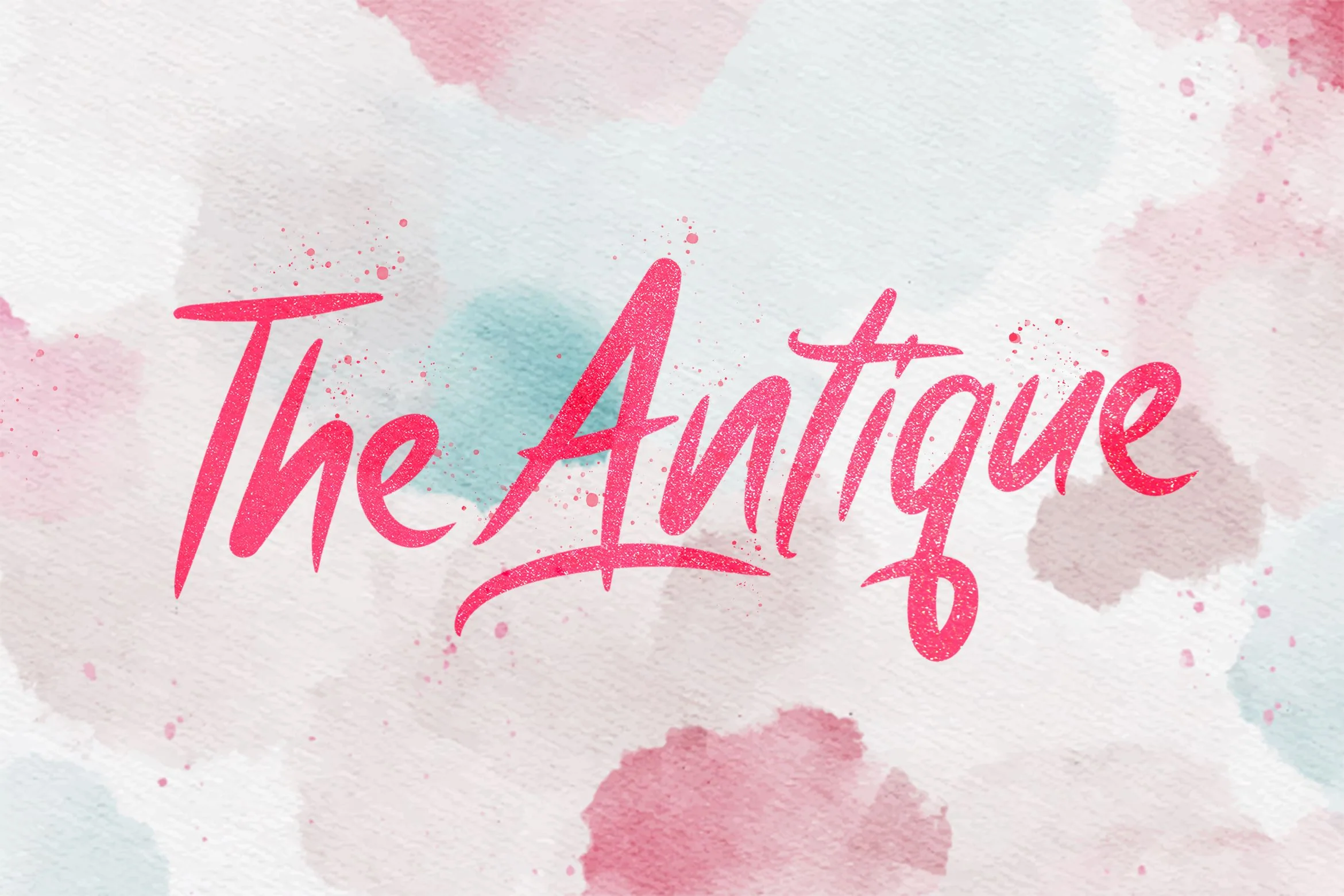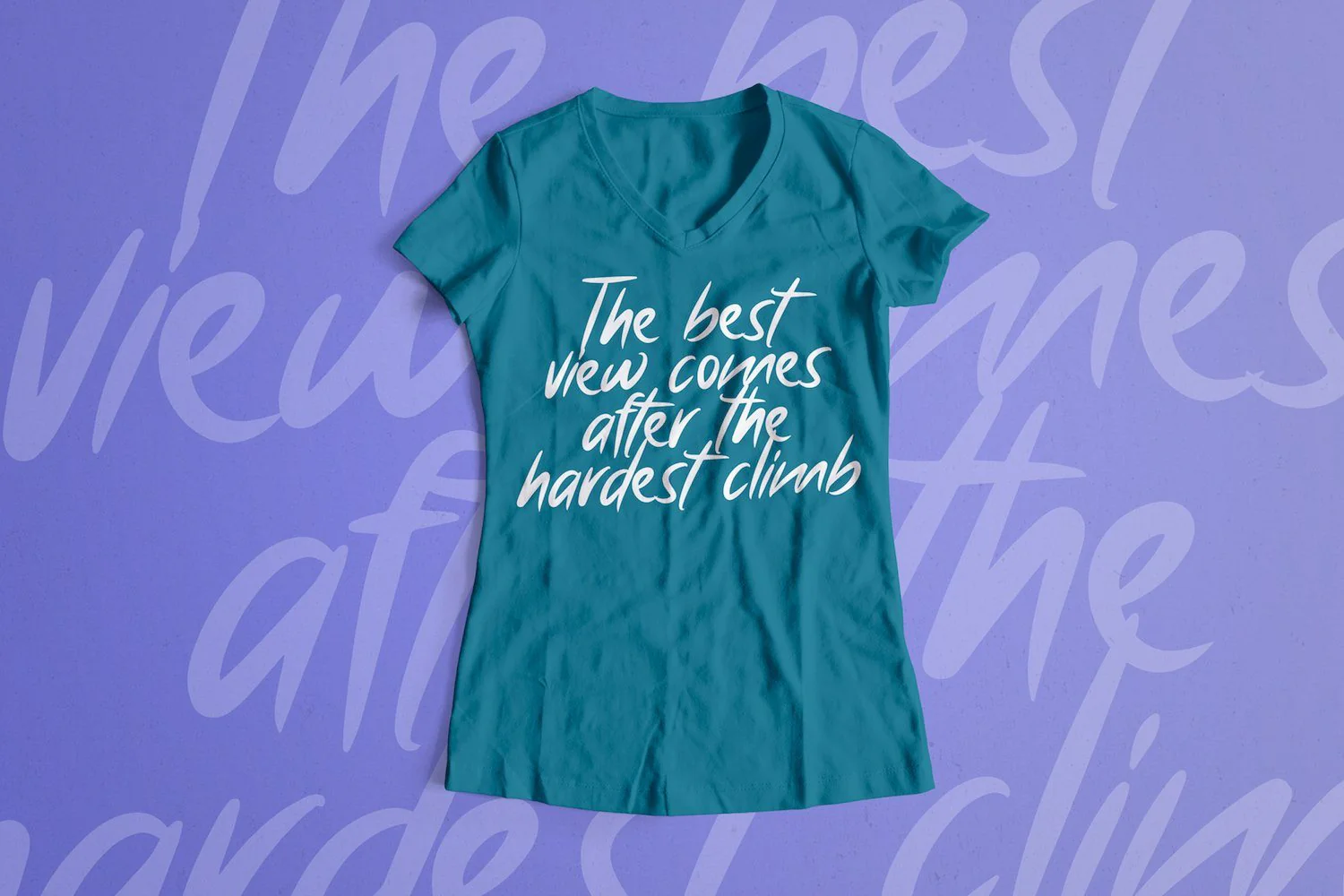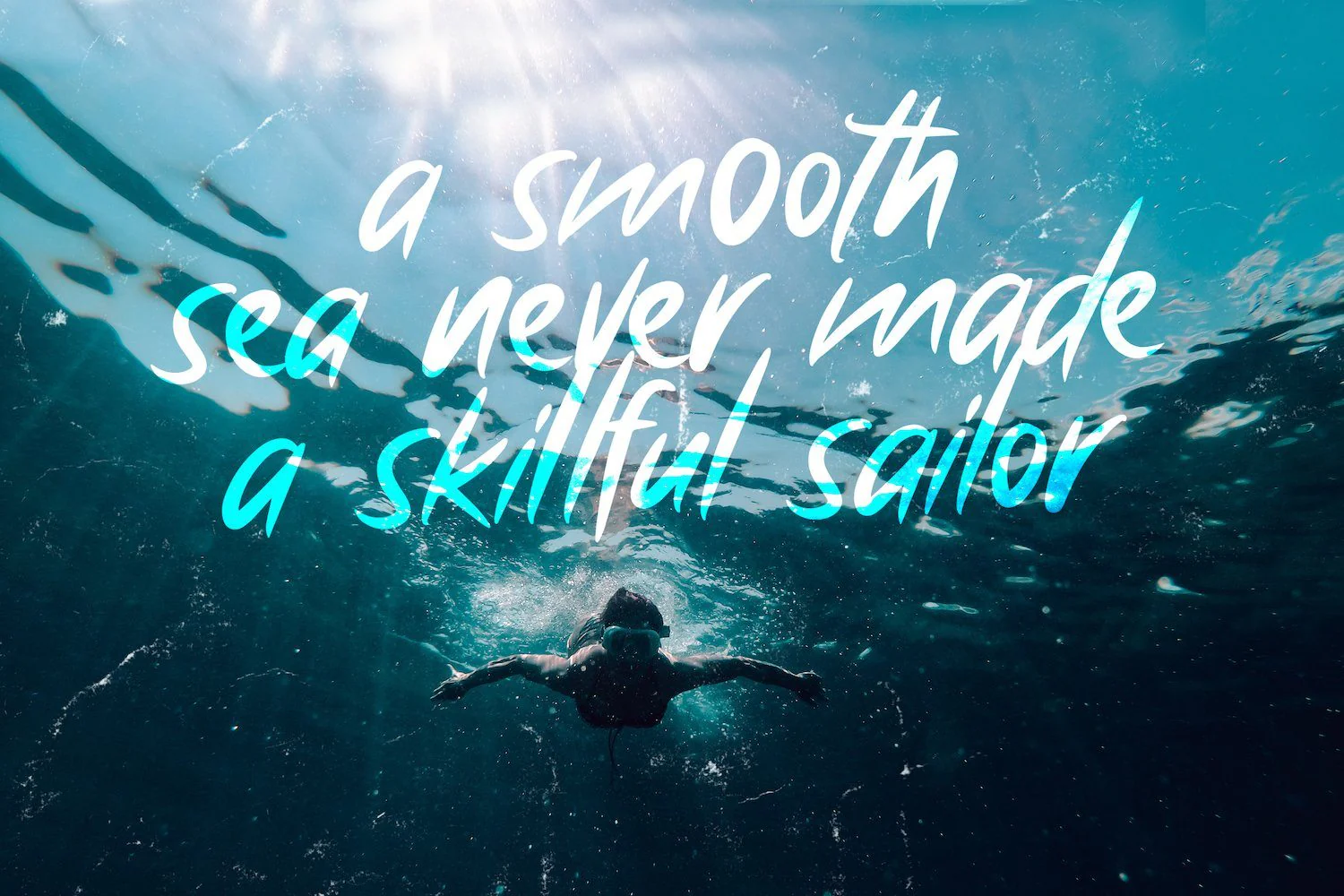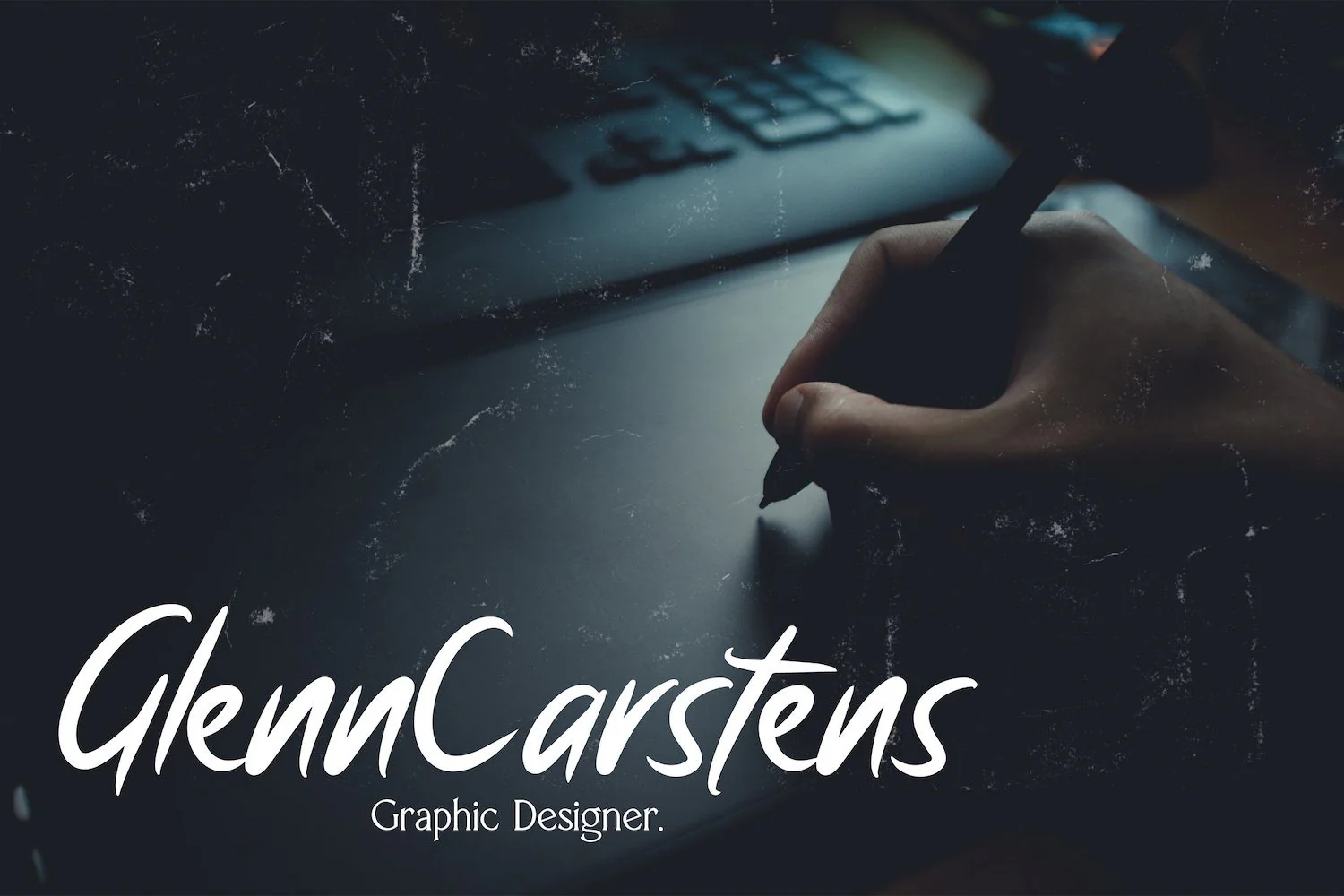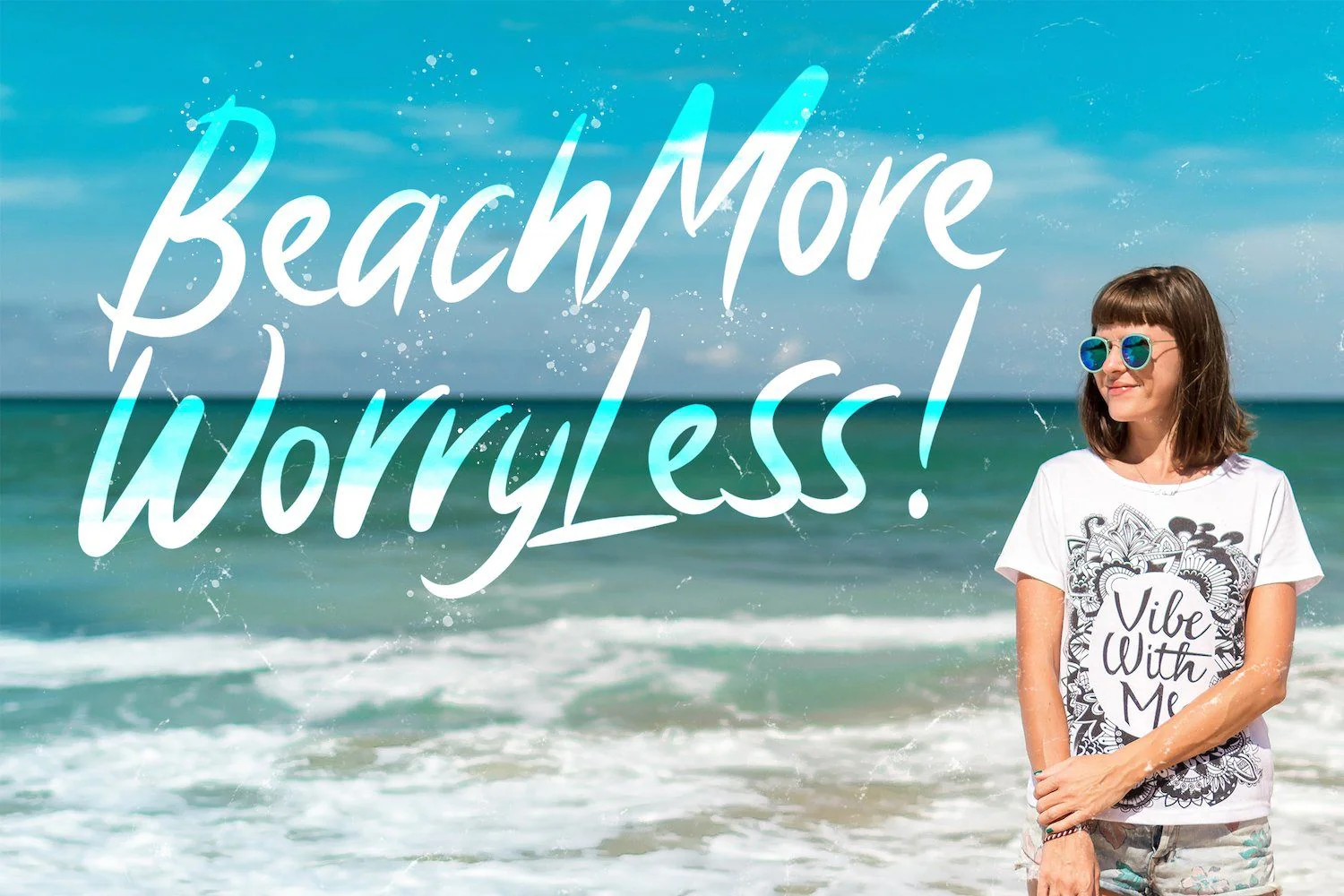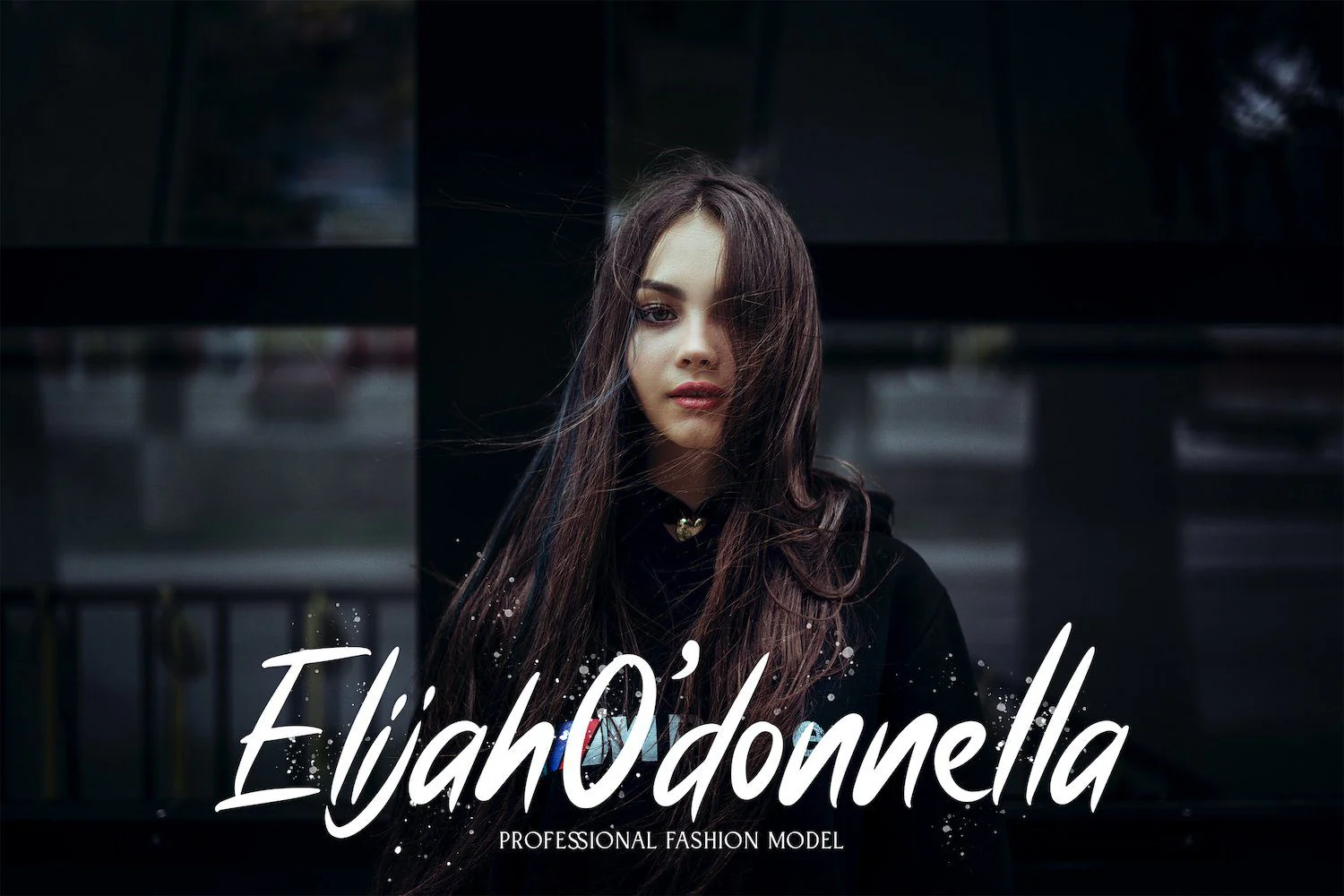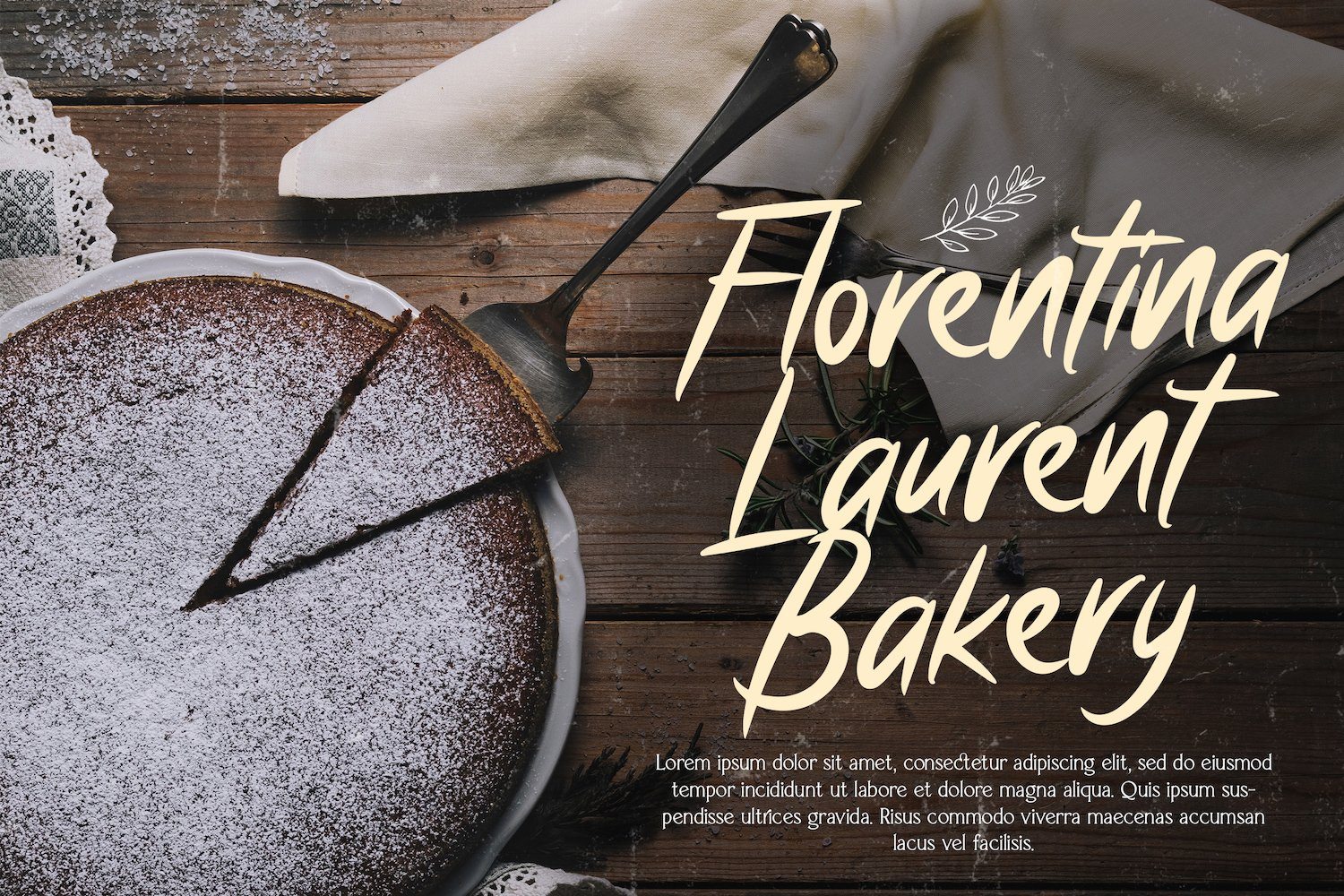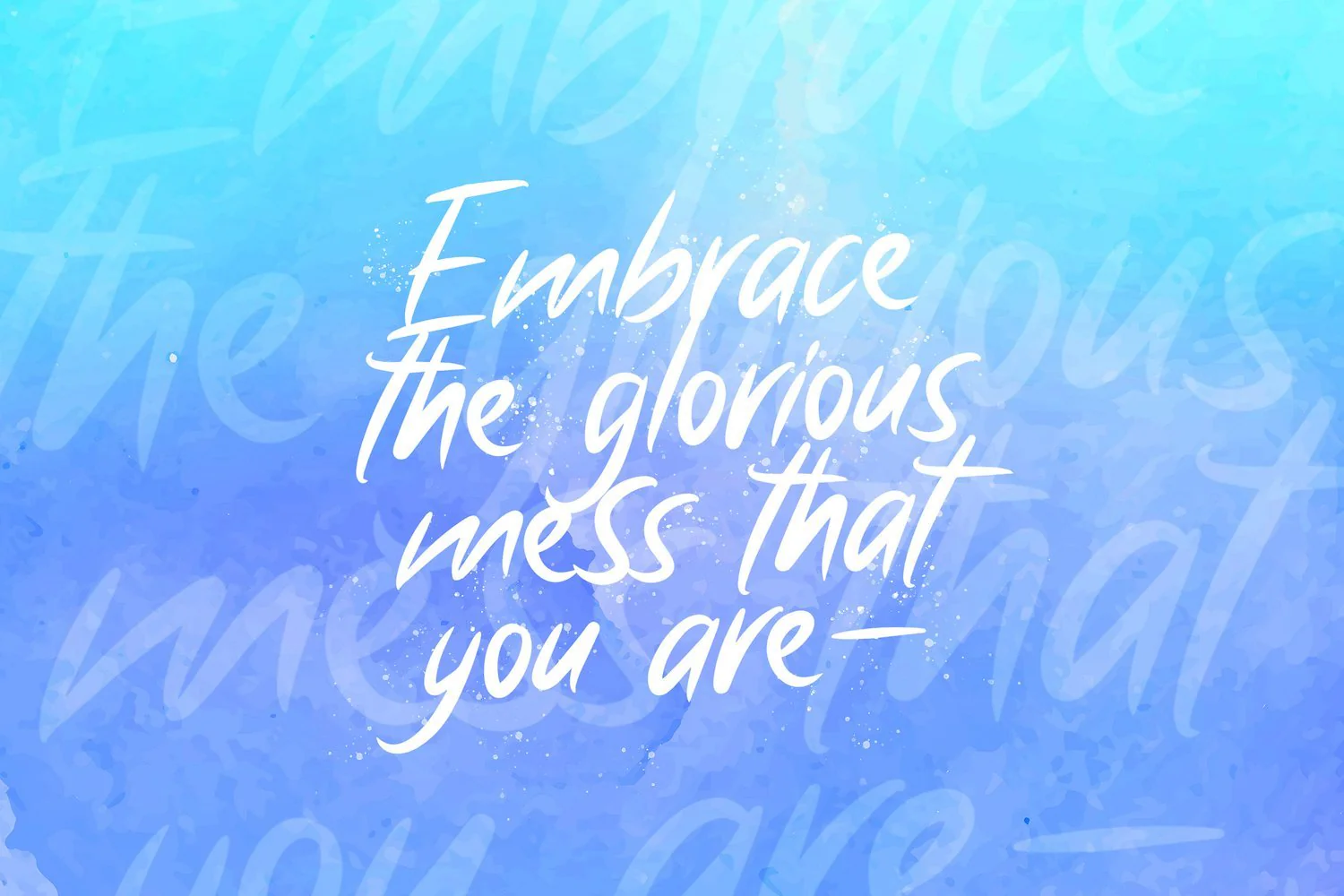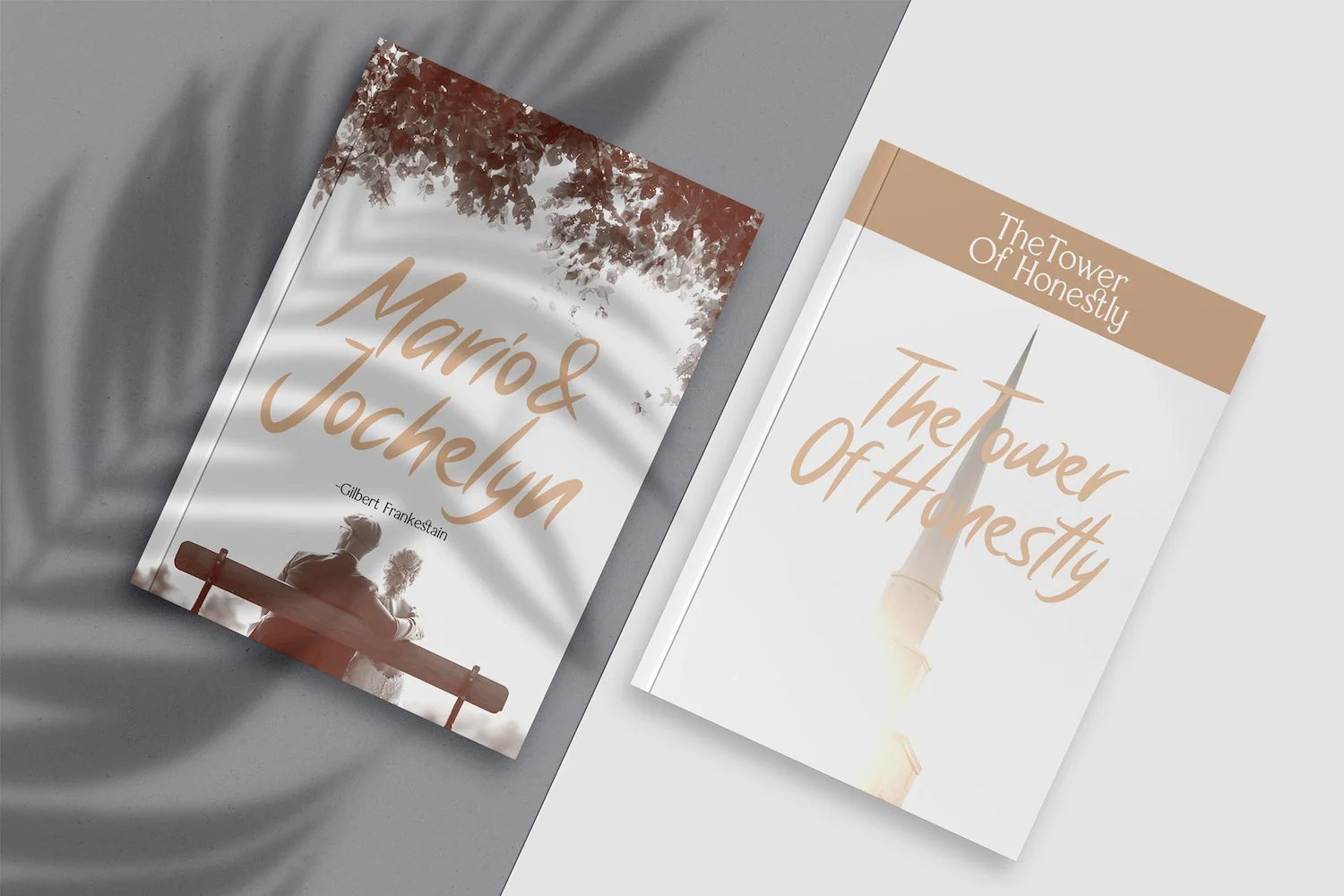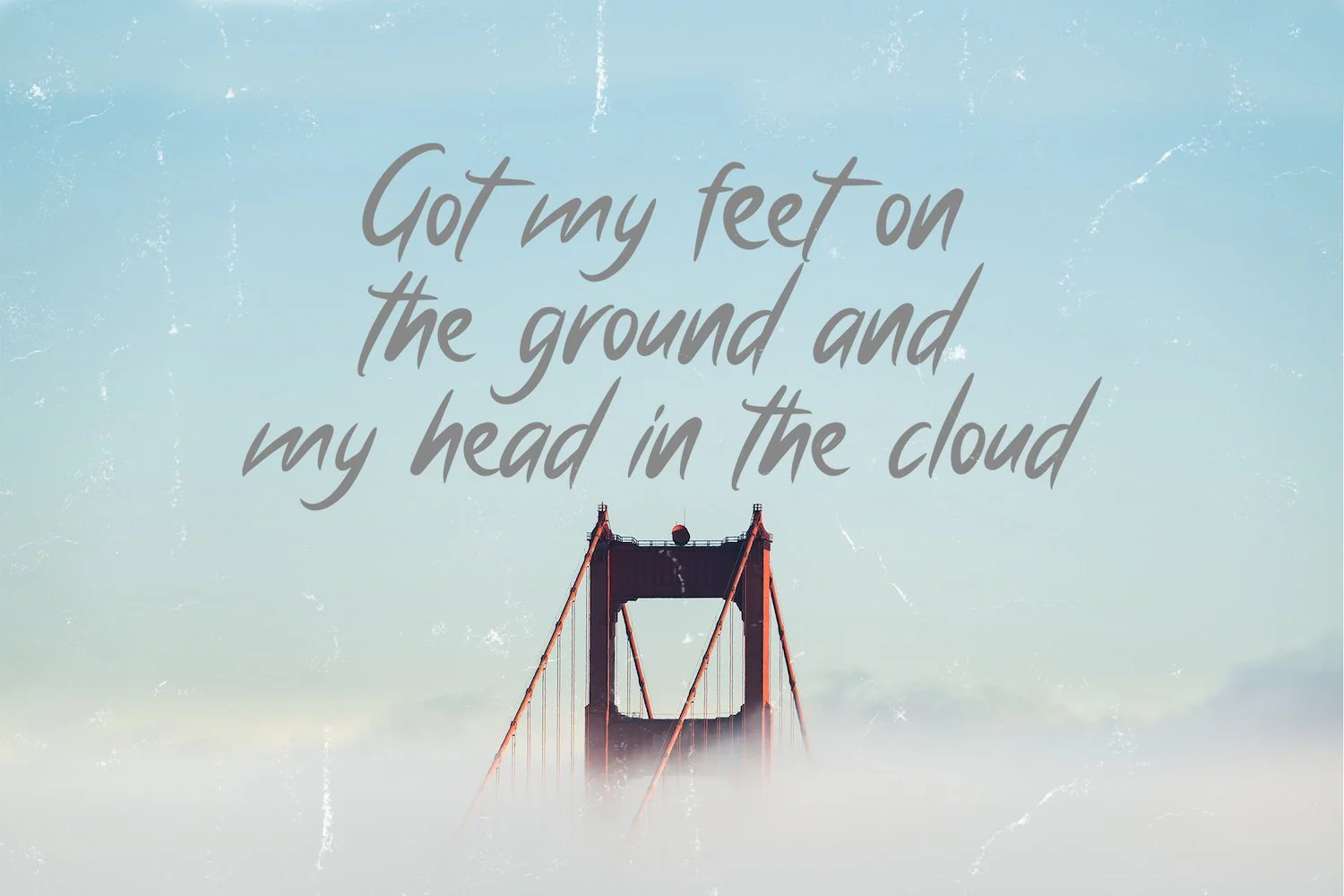
Antique - Bold Script Font
Introducing Antique - Bold Script Font
The Antique is a bold script font with a unique vintage look. It will elevate a wide range of design projects to the highest level, be it branding, headings, logos, labels, and much more!
Introducing Antique - Bold Script Font
The Antique is a bold script font with a unique vintage look. It will elevate a wide range of design projects to the highest level, be it branding, headings, logos, labels, and much more!